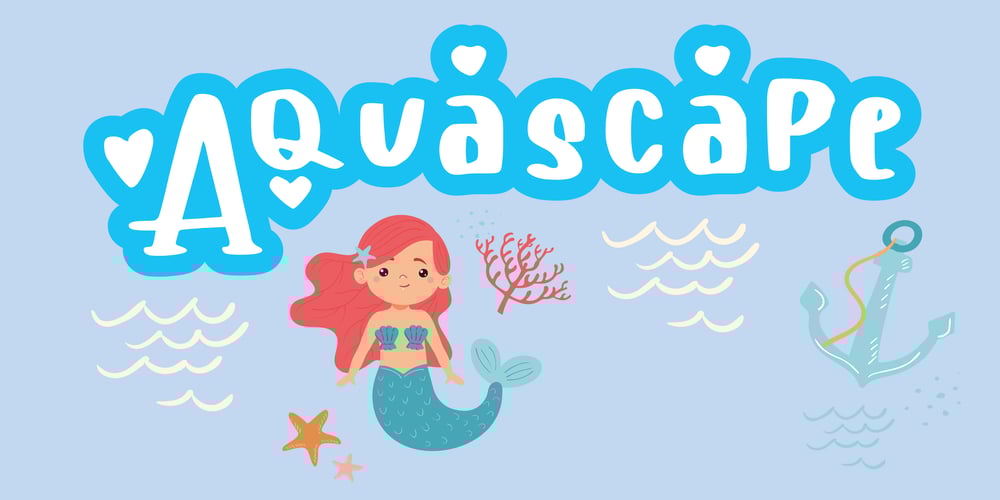
Aquascape Font Family was designed by Mariyana and published by Goodigital13. Aquascape contains 1 styles and family package options. It will make your design project more beautiful. The font is suitable for any design like branding, fashion, print template, quotes, wedding and etc.Perfect to use for Logotype, Letterhead, Poster, Apparel Design, Label and etc.perfect for cards, prints, logos, invitations, arrange illustration and decoration. It has upper and lower case letters, numbers, special characters, accents. Perfect for Children!